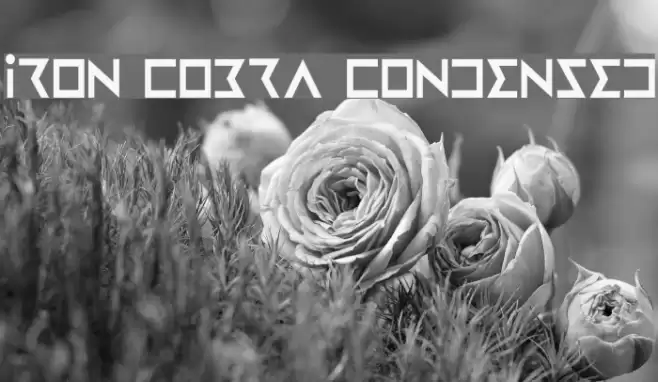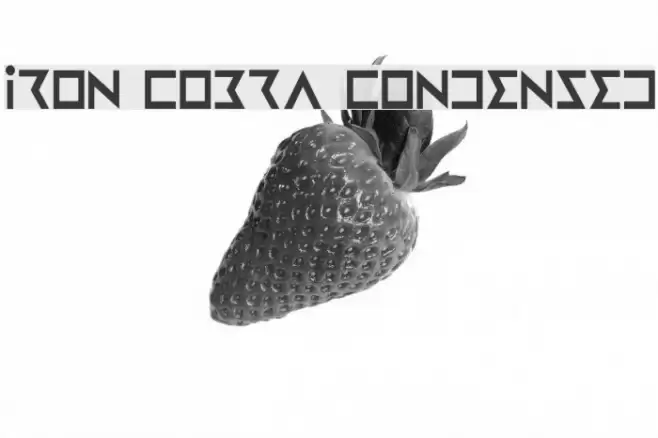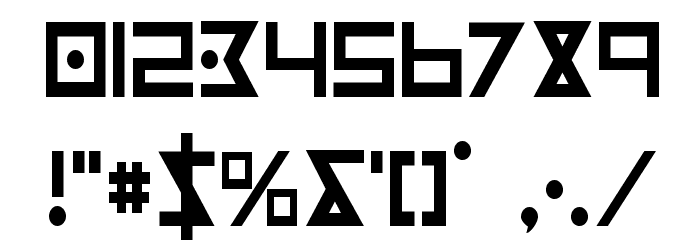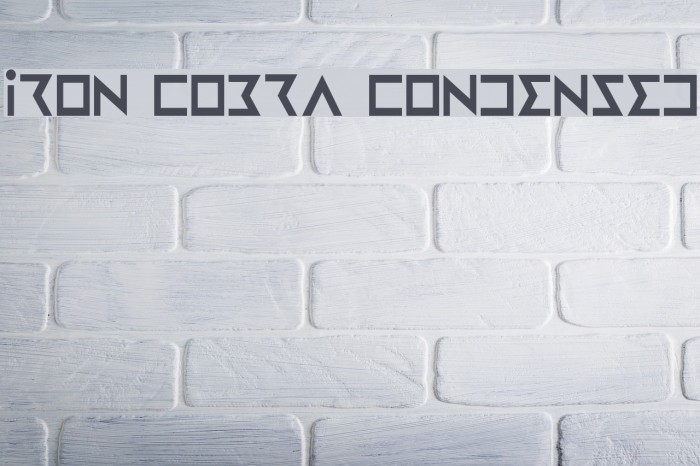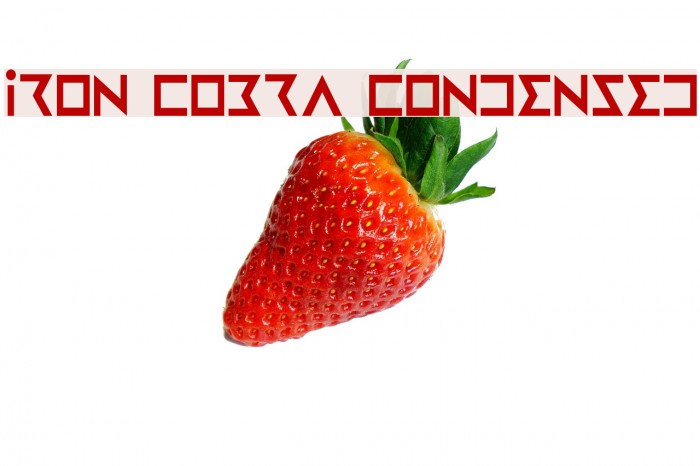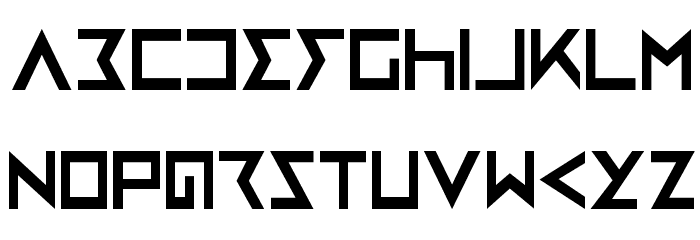
Iron Cobra Condensed Font
Iron Cobra Condensed Description
This font features a bold and geometric design with a futuristic and angular aesthetic. The characters are constructed with sharp edges and distinct angles, giving it a unique and striking appearance. The use of dots within certain letters adds an extra layer of visual interest, enhancing its modern and tech-inspired look. The font is highly stylized, making it suitable for projects that require a strong visual impact. Its condensed form allows for efficient use of space, making it ideal for headlines or titles where space is limited. The overall design is consistent across uppercase, lowercase, and numerical characters, maintaining a cohesive and unified style.
A bold, geometric font with a futuristic and angular design from Uncategorized fonts.
- Proposed Projects: Ideal for sci-fi themed posters, video game titles, tech branding, and futuristic event flyers.
- Overall Style: Futuristic